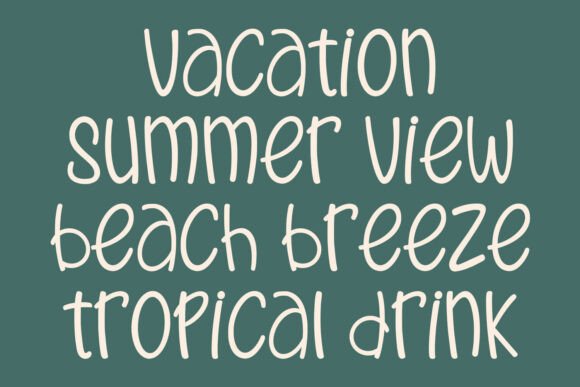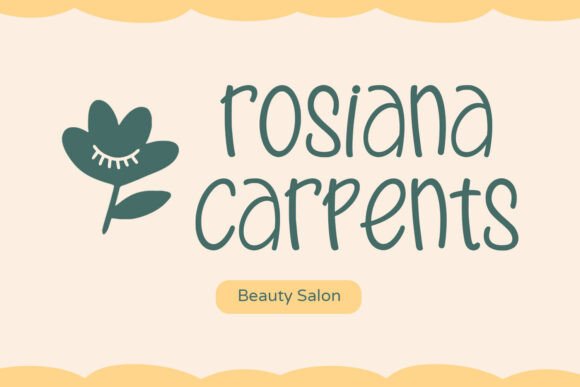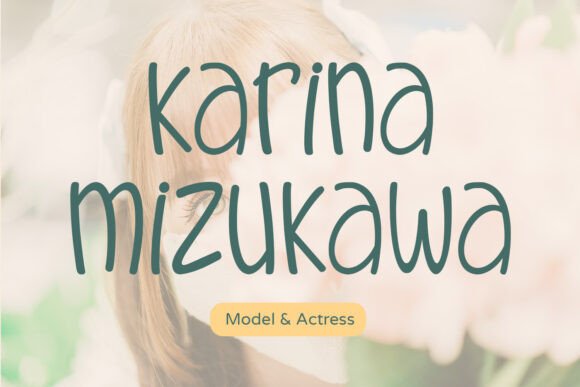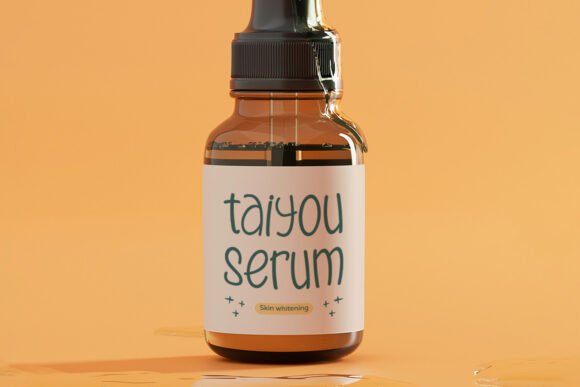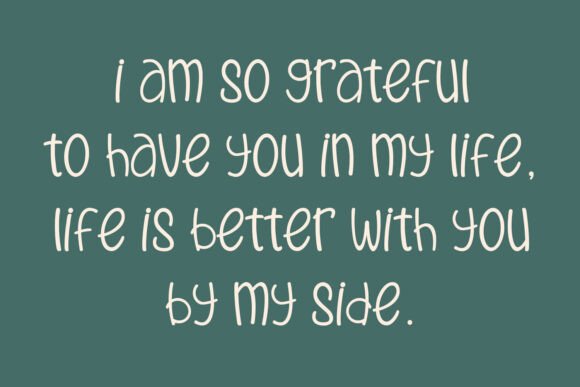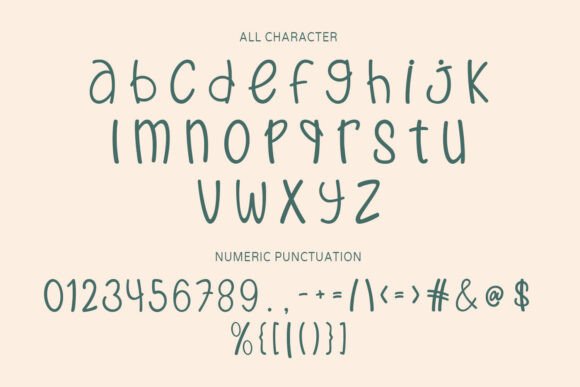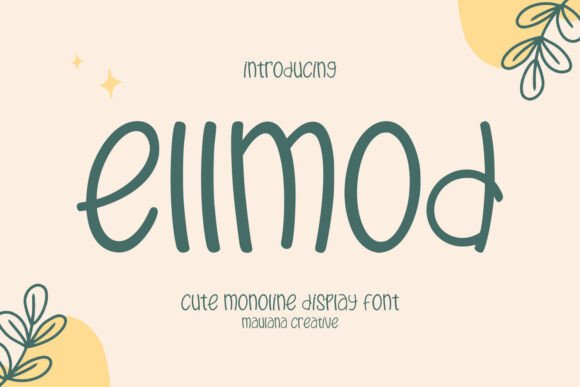
Introducing Ellmod Font: The Perfect Blend of Whimsy and Warmth
Are you a designer, crafter, or DIY enthusiast looking for a font that can add a touch of personality to your projects? Look no further than Ellmod Font, a delightful monoline display font that exudes a charming handwritten feel. With its tall, rounded letters and playful curves, Ellmod is the perfect choice for anyone seeking a soft, approachable aesthetic.
A Font that Speaks to the Heart
Ellmod Font is designed to evoke a sense of warmth and friendliness, making it an ideal choice for projects that require a personal touch. Its unique blend of modern and handwritten elements gives it a distinctive character that is sure to capture the attention of your audience. Whether you’re working on a children’s book, a DIY project, or a stationery design, Ellmod Font is the perfect companion to help you convey your message in a playful and engaging way.
Key Features of Ellmod Font
- Monoline Display Font: Ellmod Font features a monoline design, which means that the font has a consistent line width throughout. This gives it a clean and modern look that’s perfect for display purposes.
- Charming Handwritten Feel: Despite its modern design, Ellmod Font has a charming handwritten feel that makes it relatable and approachable.
- Tall, Rounded Letters: The font features tall, rounded letters that give it a playful and whimsical feel.
- Playful Curves: Ellmod Font’s playful curves add to its friendly and approachable personality.
Ellmod Font is a versatile font that can be used for a wide range of projects, including:
- Children’s Books: The font’s playful and whimsical feel makes it perfect for children’s books, where it can help bring stories to life.
- DIY Projects: Ellmod Font is a great choice for DIY enthusiasts who want to add a personal touch to their projects, such as handmade cards, gift tags, and more.
- Stationery: The font’s elegant and refined design makes it suitable for stationery designs, such as letterheads, invoices, and more.
- Logos: Ellmod Font can also be used to create logos that require a friendly and approachable feel.
Why Choose Ellmod Font?
So why choose Ellmod Font over other fonts? Here are just a few reasons:
- Unique Character: Ellmod Font has a unique character that sets it apart from other fonts.
- Easy to Read: The font is easy to read, even at small sizes, making it perfect for a variety of applications.
- Versatile: Ellmod Font can be used for a wide range of projects, from children’s books to logos and stationery.
- High-Quality Design: The font is designed to high standards, ensuring that it looks great in any context.
In conclusion, Ellmod Font is a delightful monoline display font that offers a charming handwritten feel, making it perfect for designers, crafters, and DIY enthusiasts. Its unique character, playful curves, and tall, rounded letters give it a warm and friendly personality that’s sure to capture the attention of your audience. Whether you’re working on a children’s book, a DIY project, or a stationery design, Ellmod Font is the perfect choice to add a touch of personality and whimsy to your work.